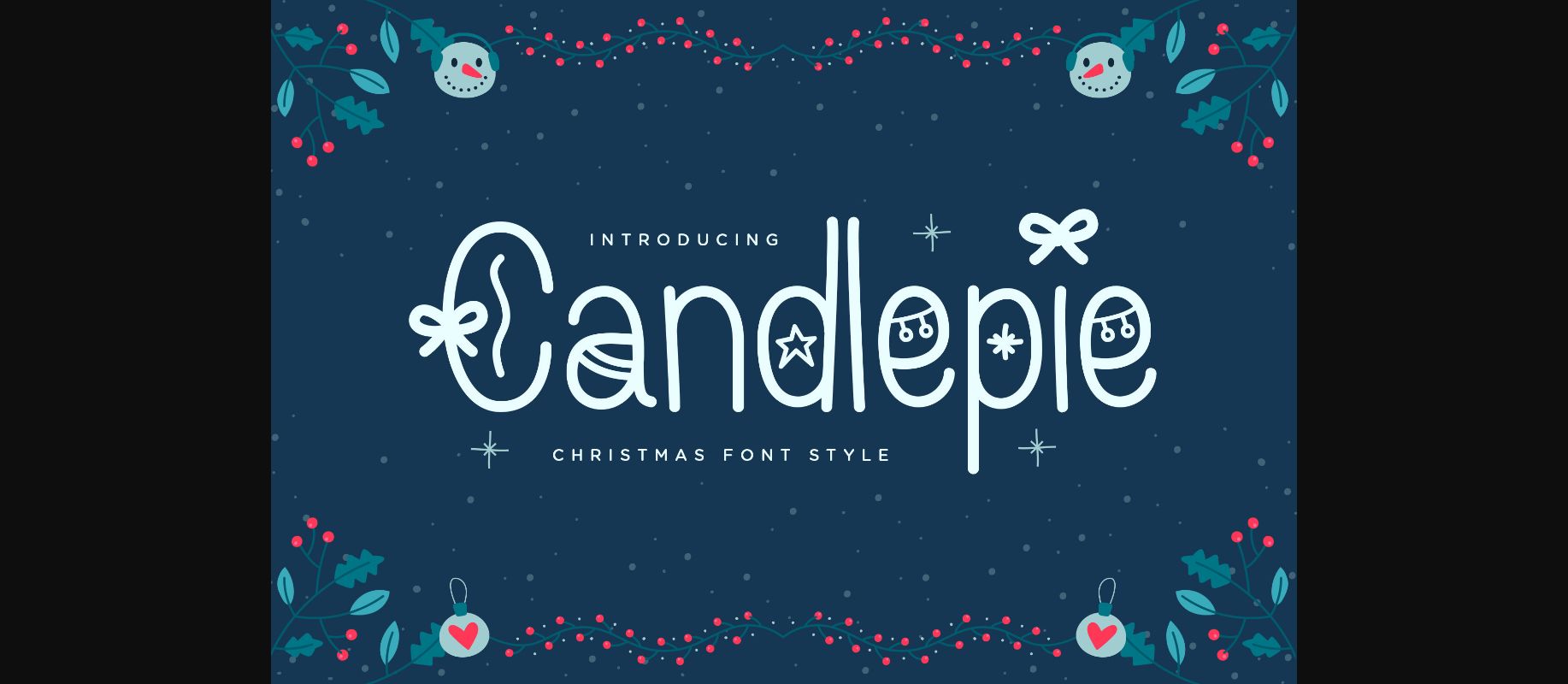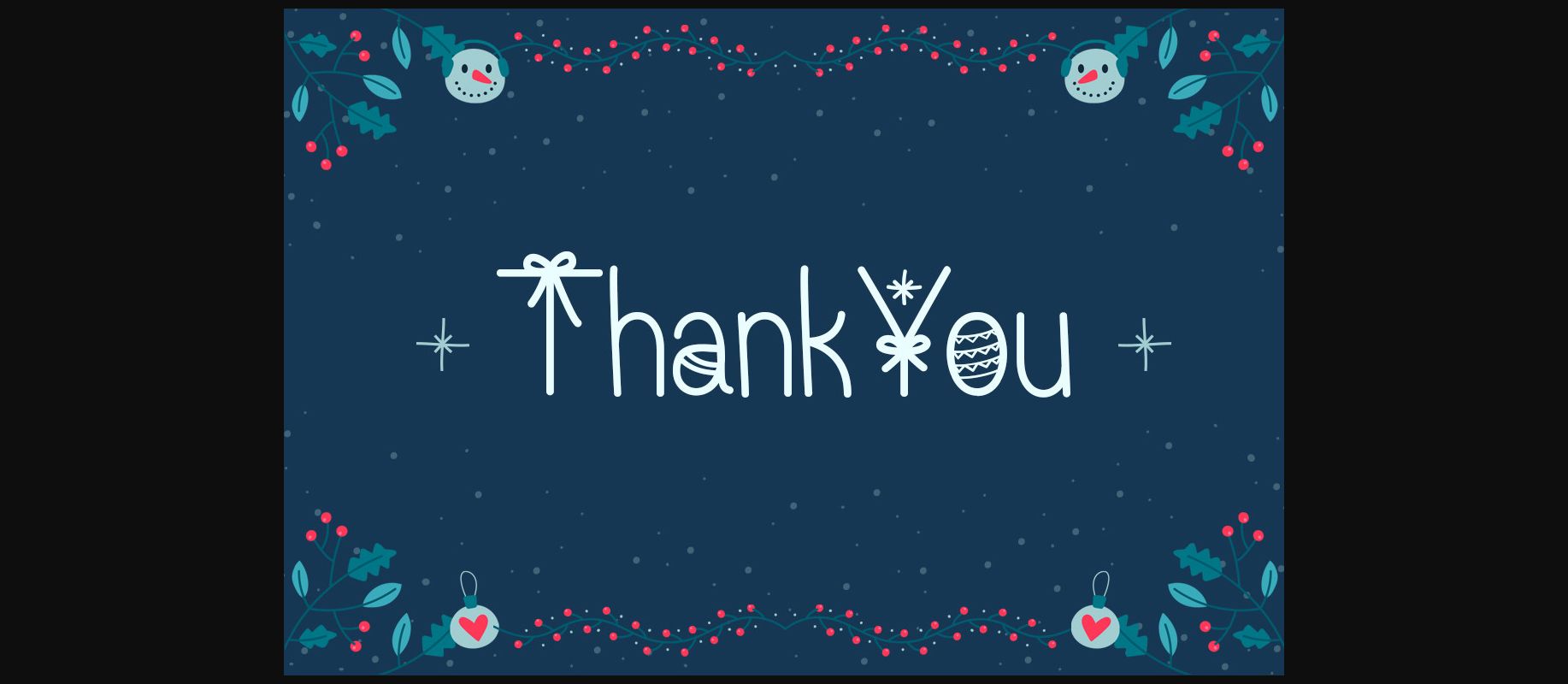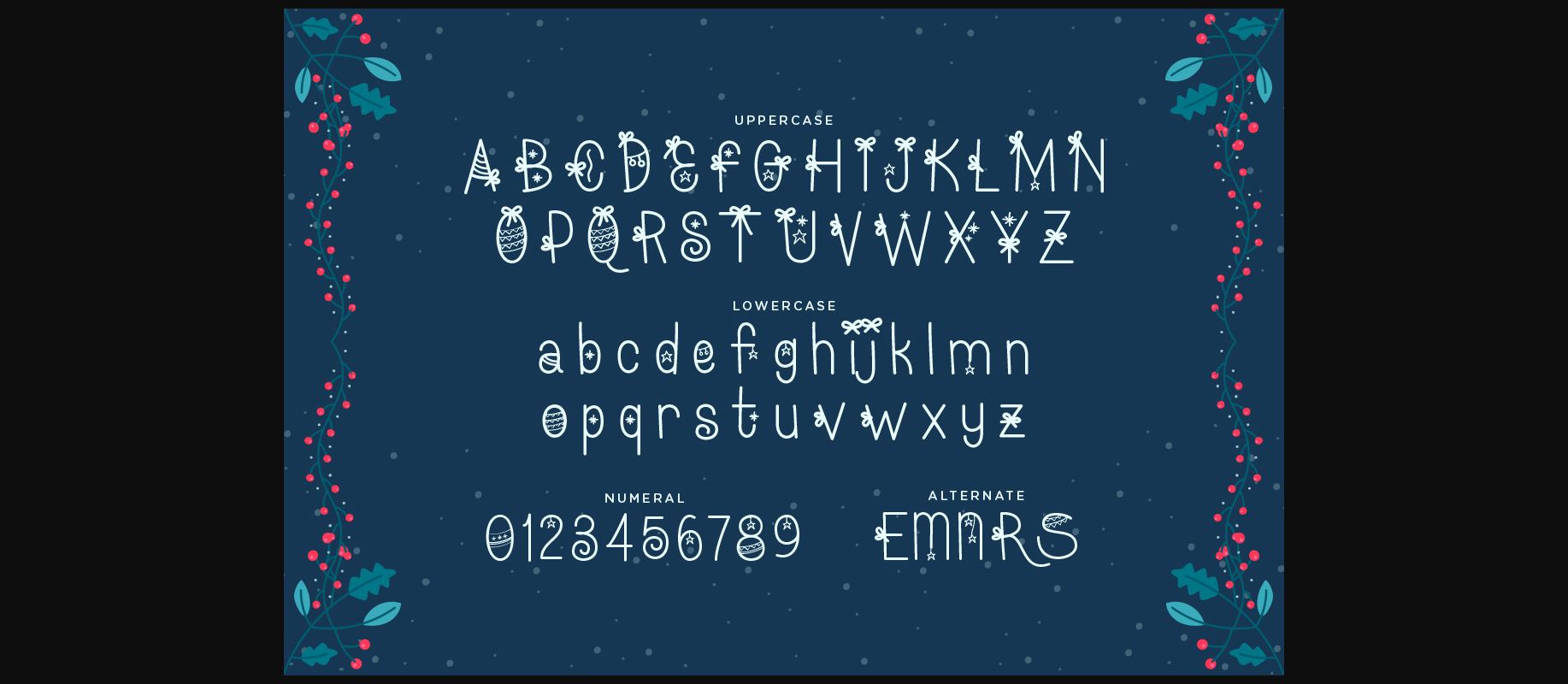
About Candlepie Font
Introducing “Candlepie,” a festive and fun Christmas font style that will add a touch of holiday cheer to any design project. With its playful curves and whimsical flourishes, this font is perfect for creating greeting cards, invitations, and other holiday-themed designs.
Candlepie is a versatile font that can be used in a variety of settings. Its festive look and feel make it perfect for designs that celebrate the spirit of Christmas, while its playful and lighthearted design makes it a great choice for designs that need a touch of whimsy.